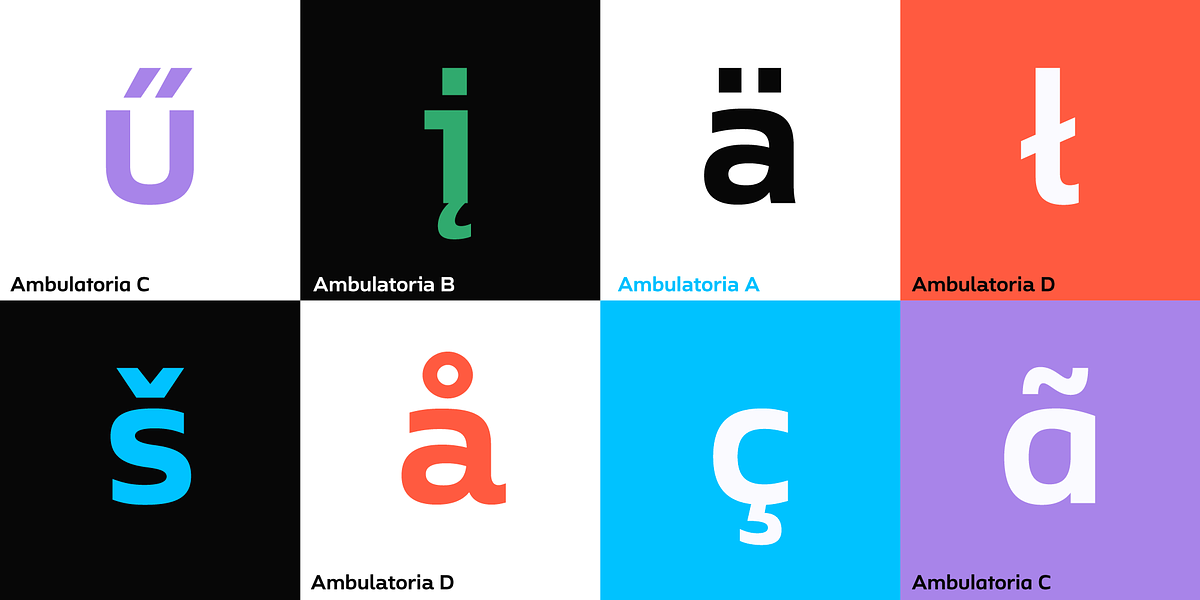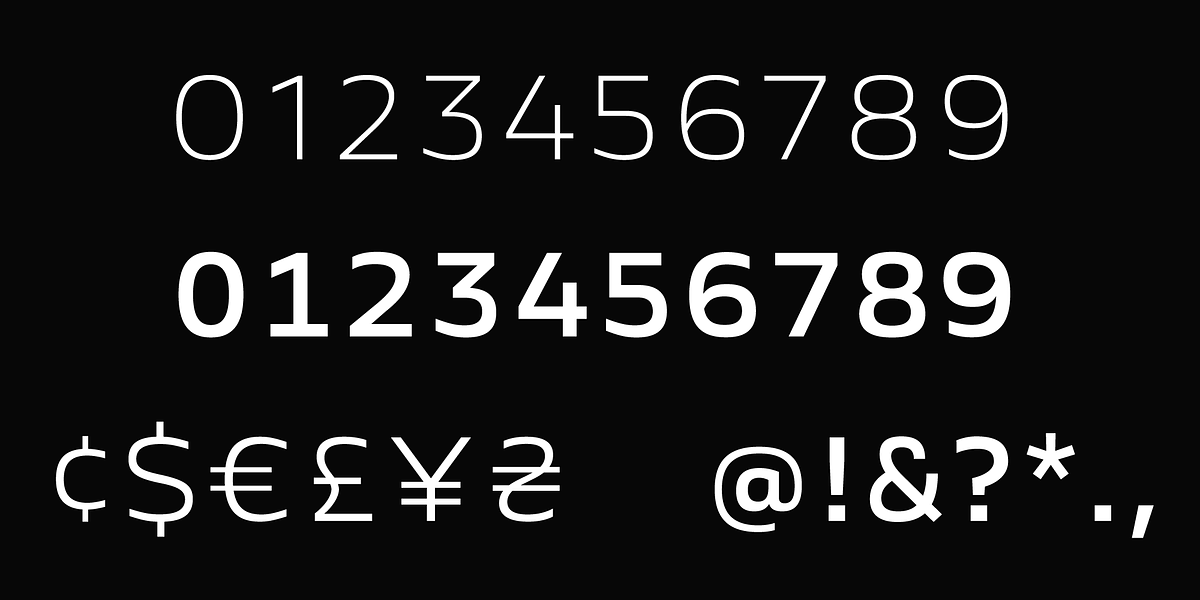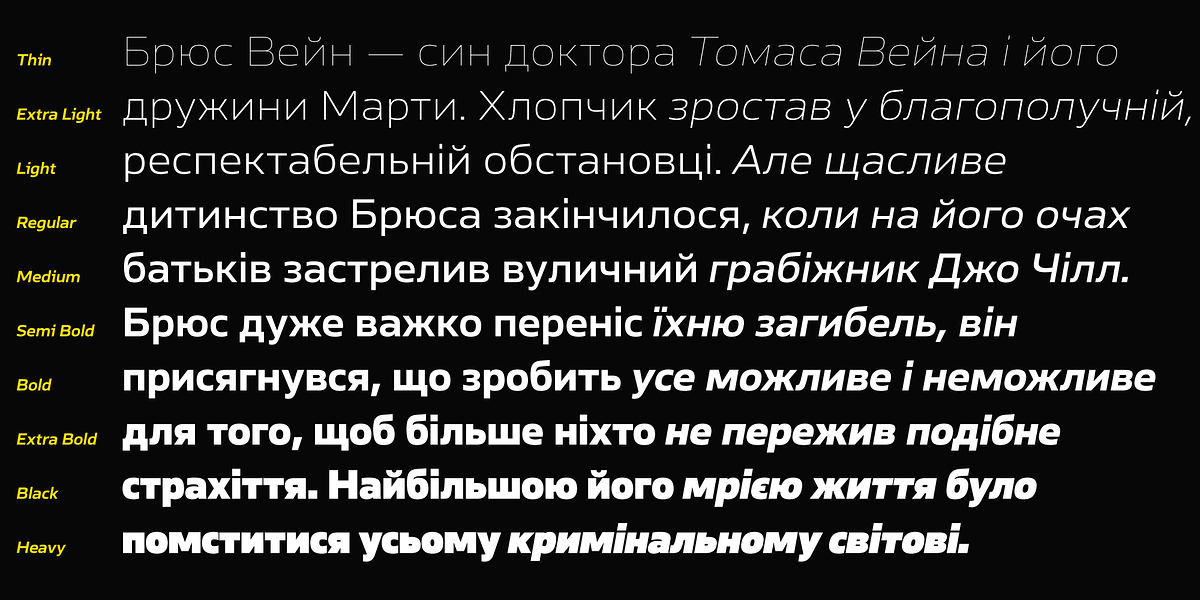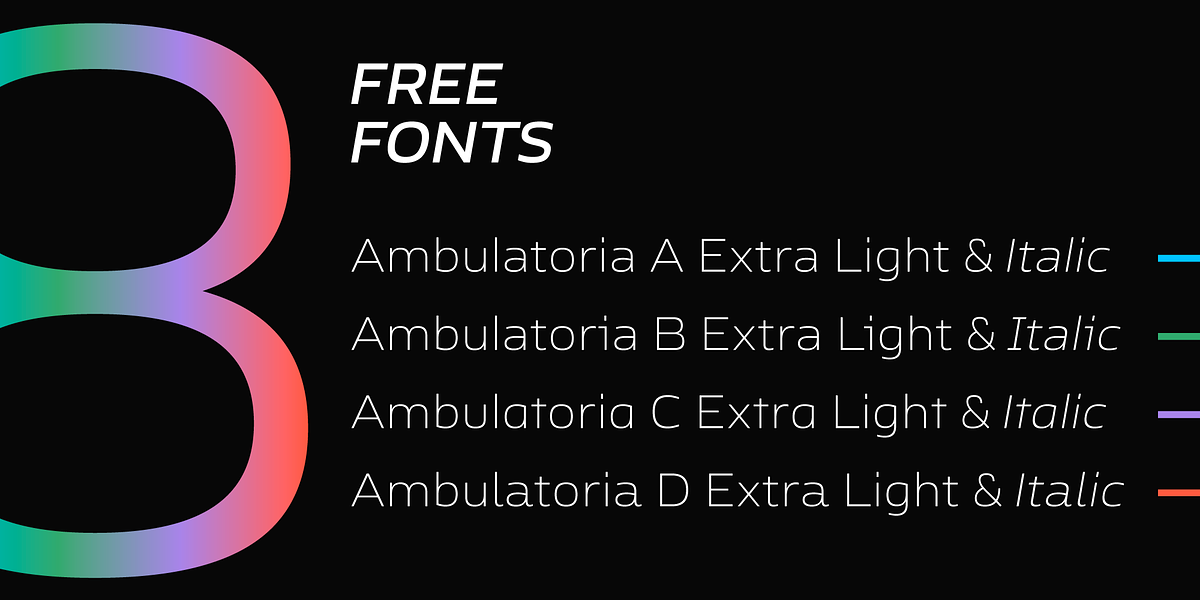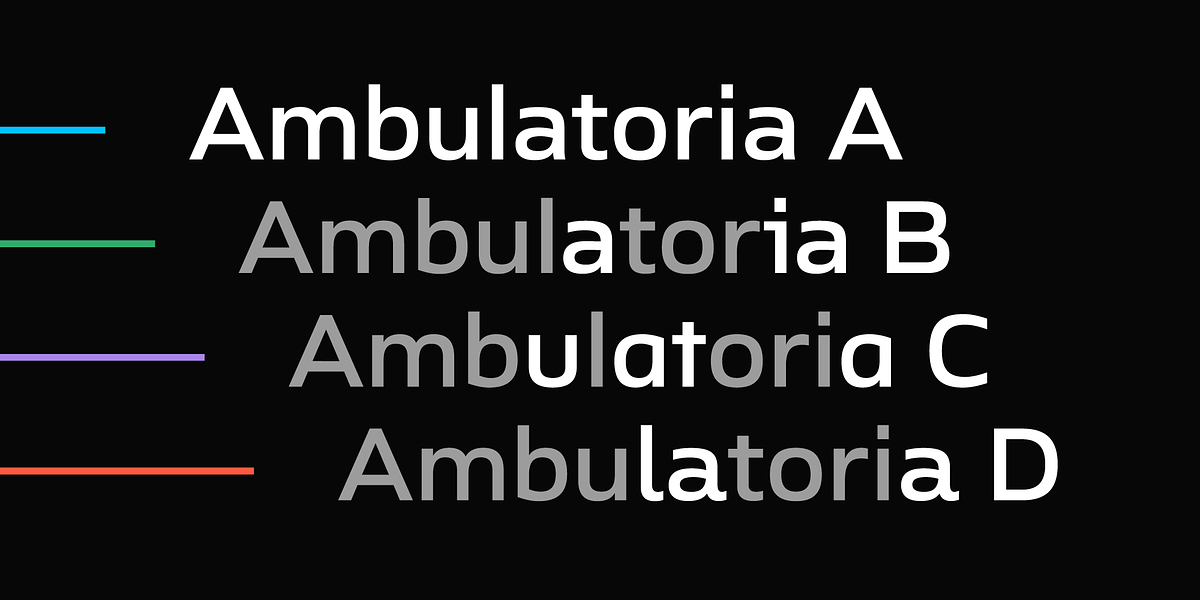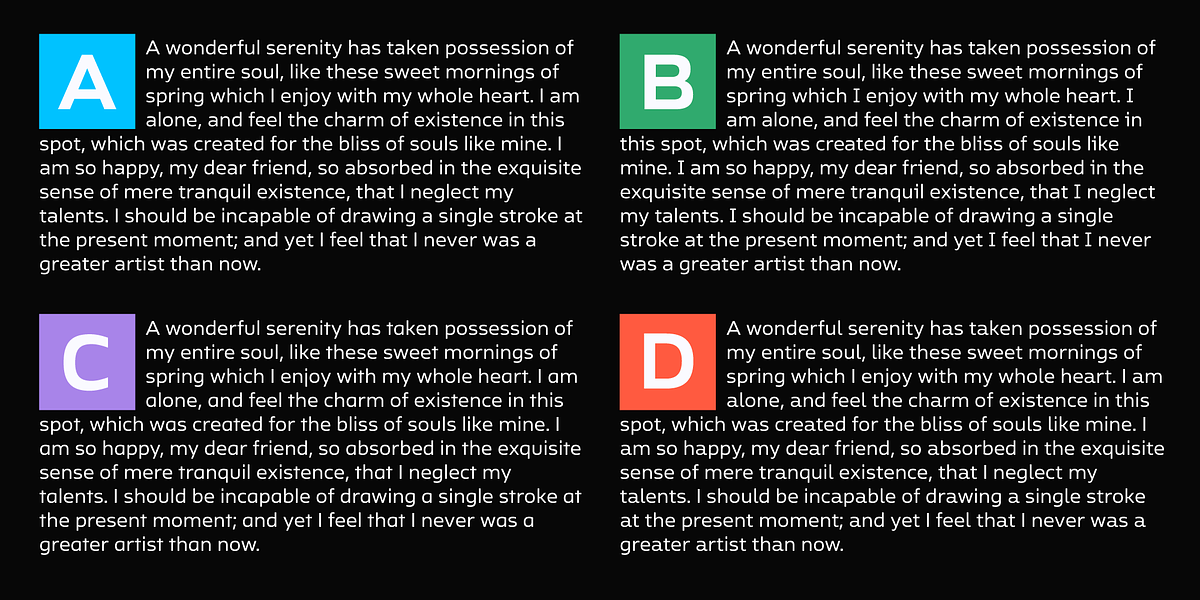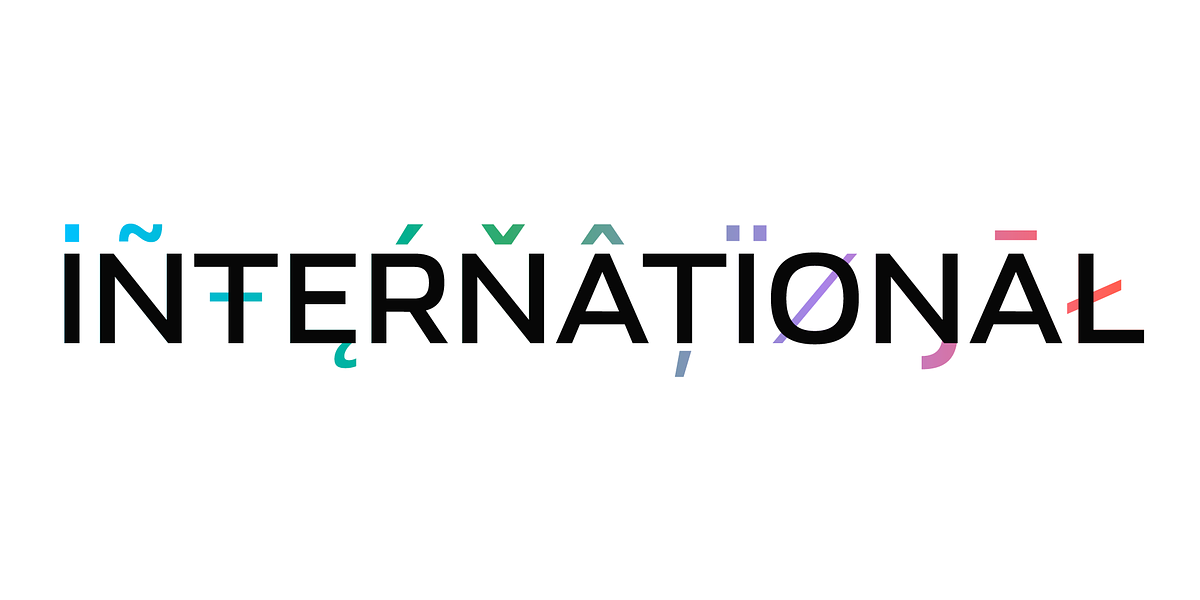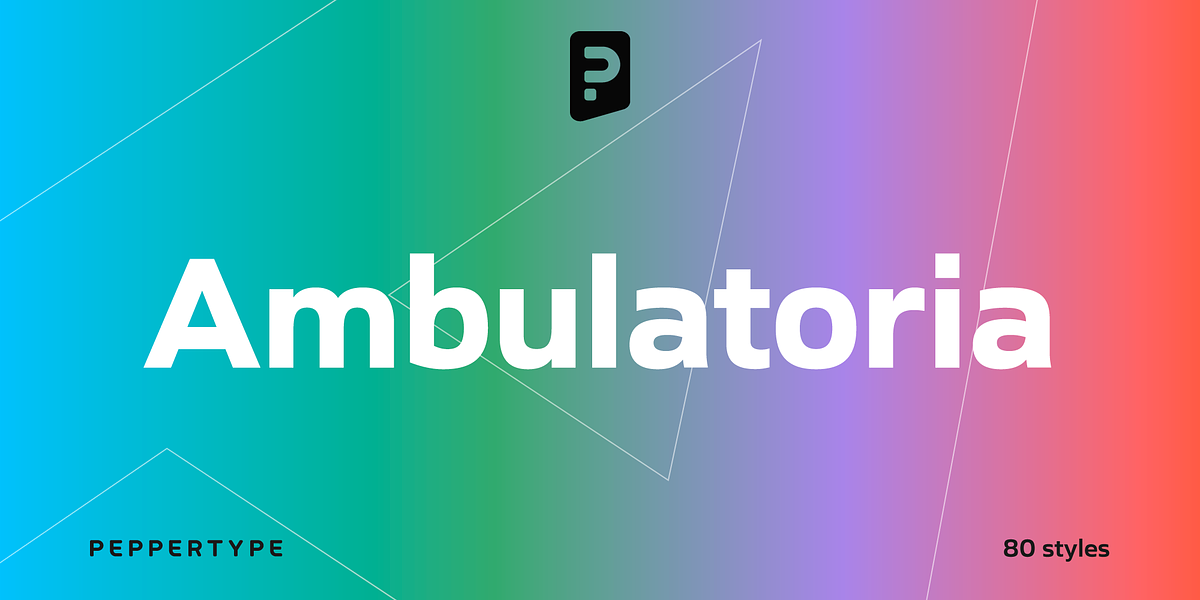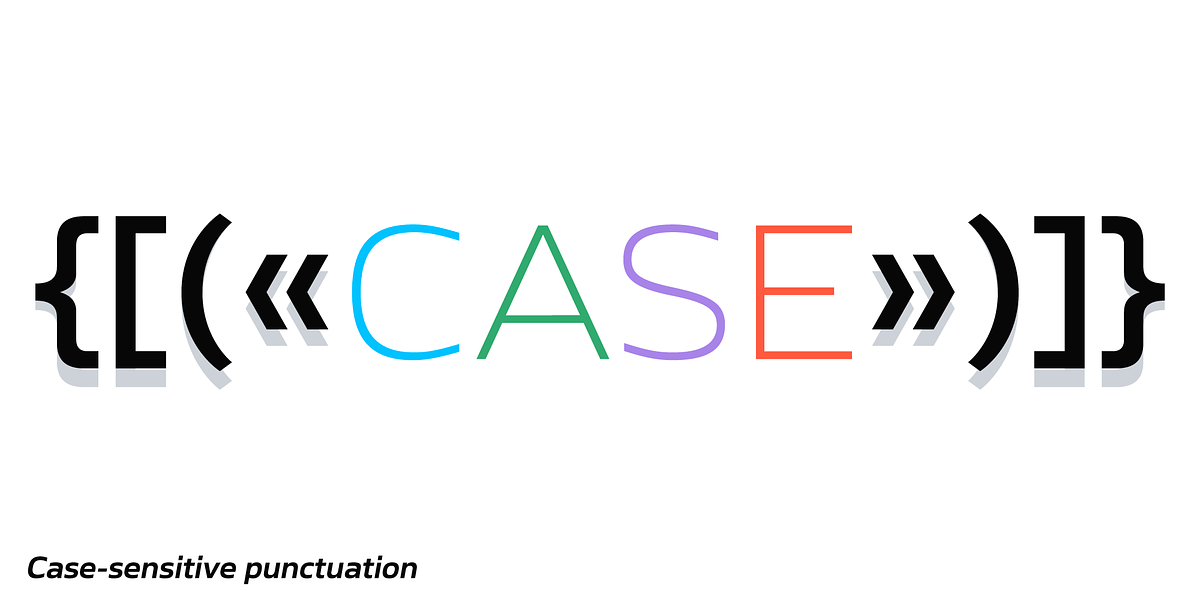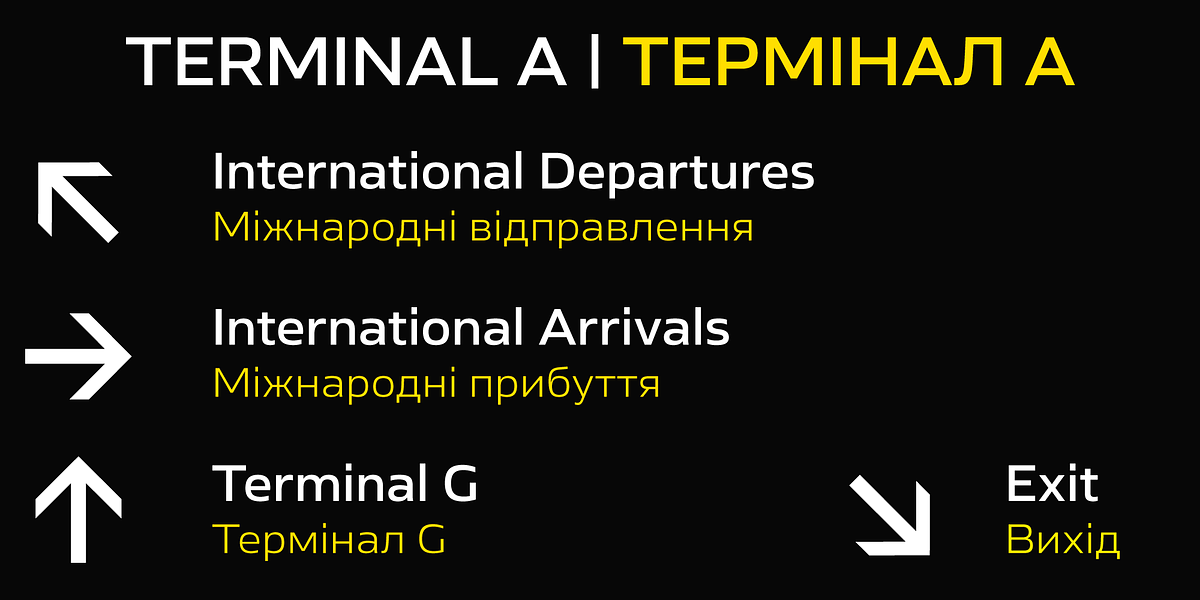
Ambulatoria A
Ambulatoria is a humanist sans-serif font designed for versatility. It features an open aperture and includes alternative glyph variants, allowing designers to adjust the character and texture of their text. With 80 fonts covering pan-European Latin and Cyrillic scripts, Ambulatoria is well-suited for both large and small text sizes.